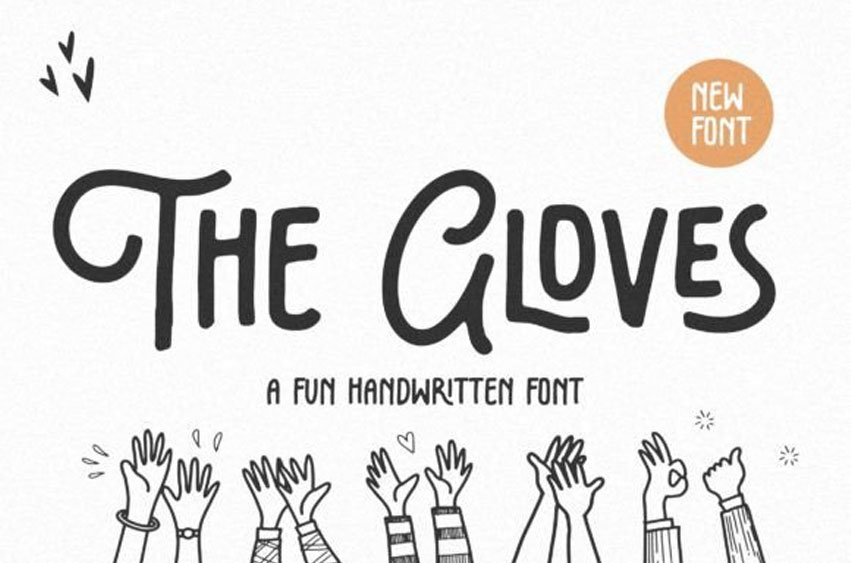
The Gloves Font
The Gloves Font is perfect for product packaging, branding project, magazines, social media, weddings, or just used to express words above the background.
This font is here to enhance the quality of your designs.